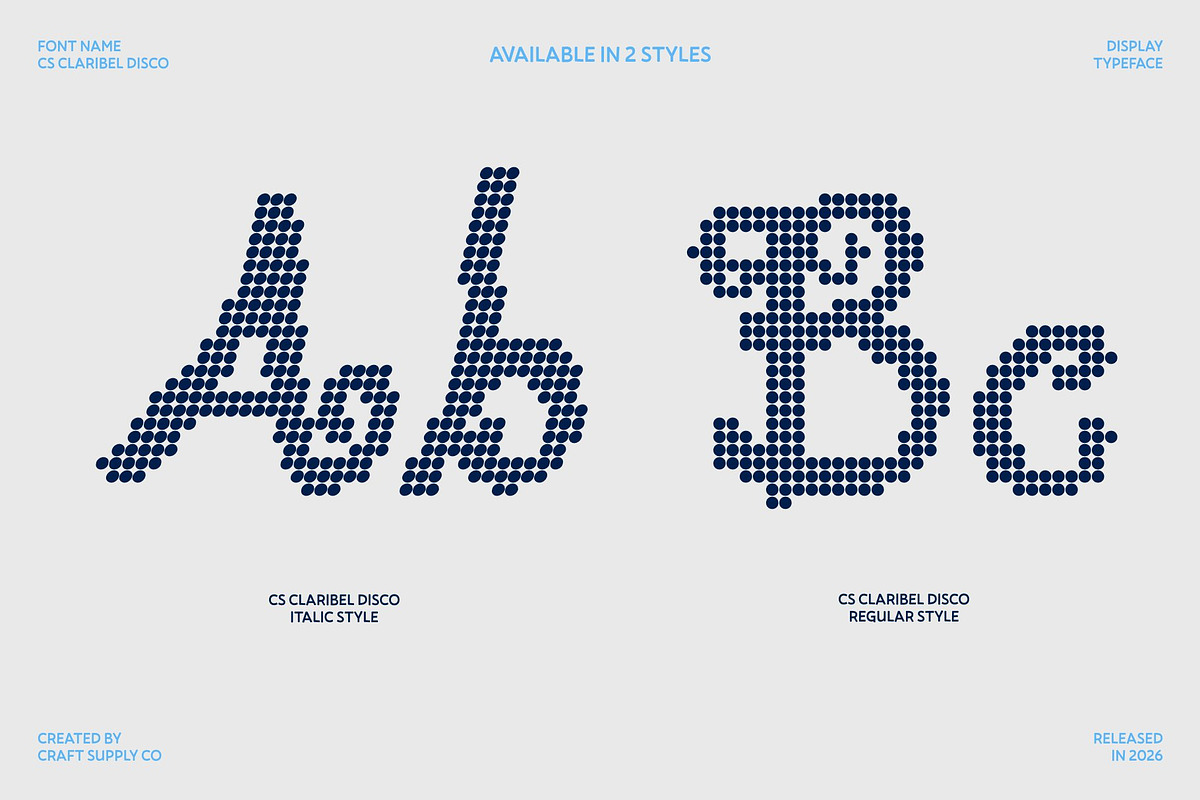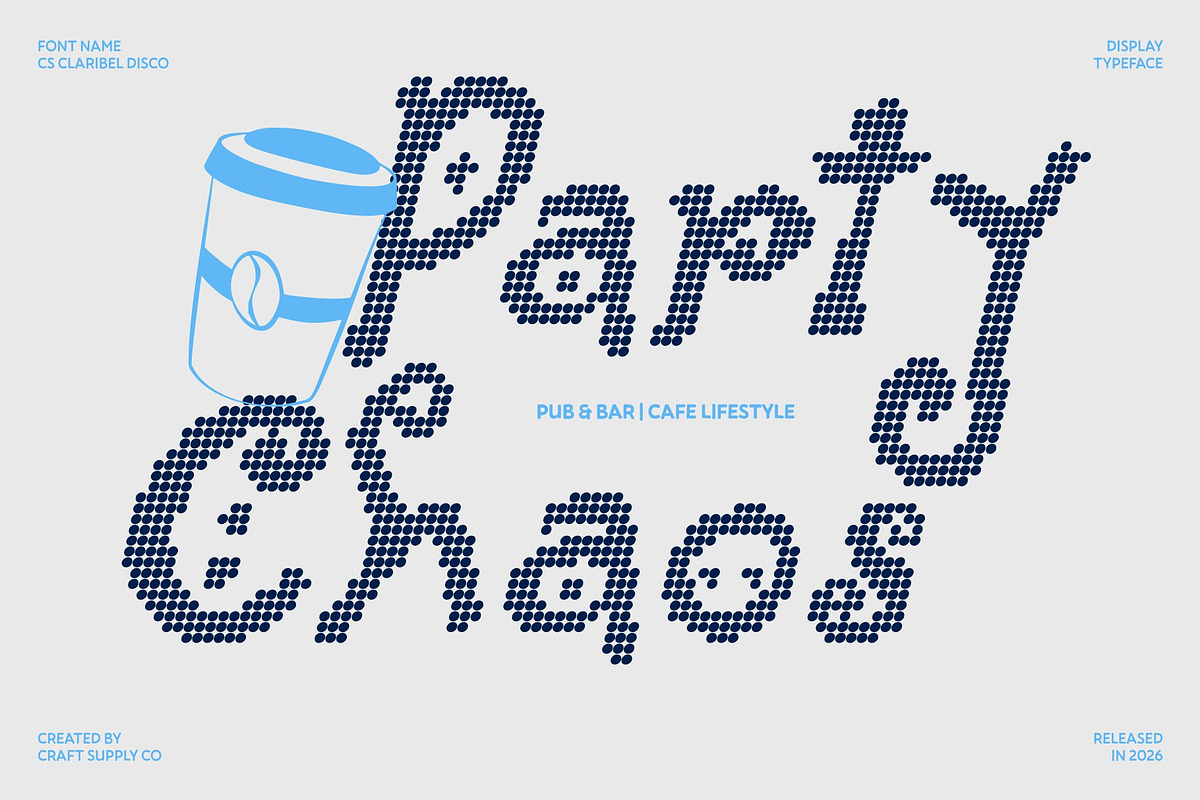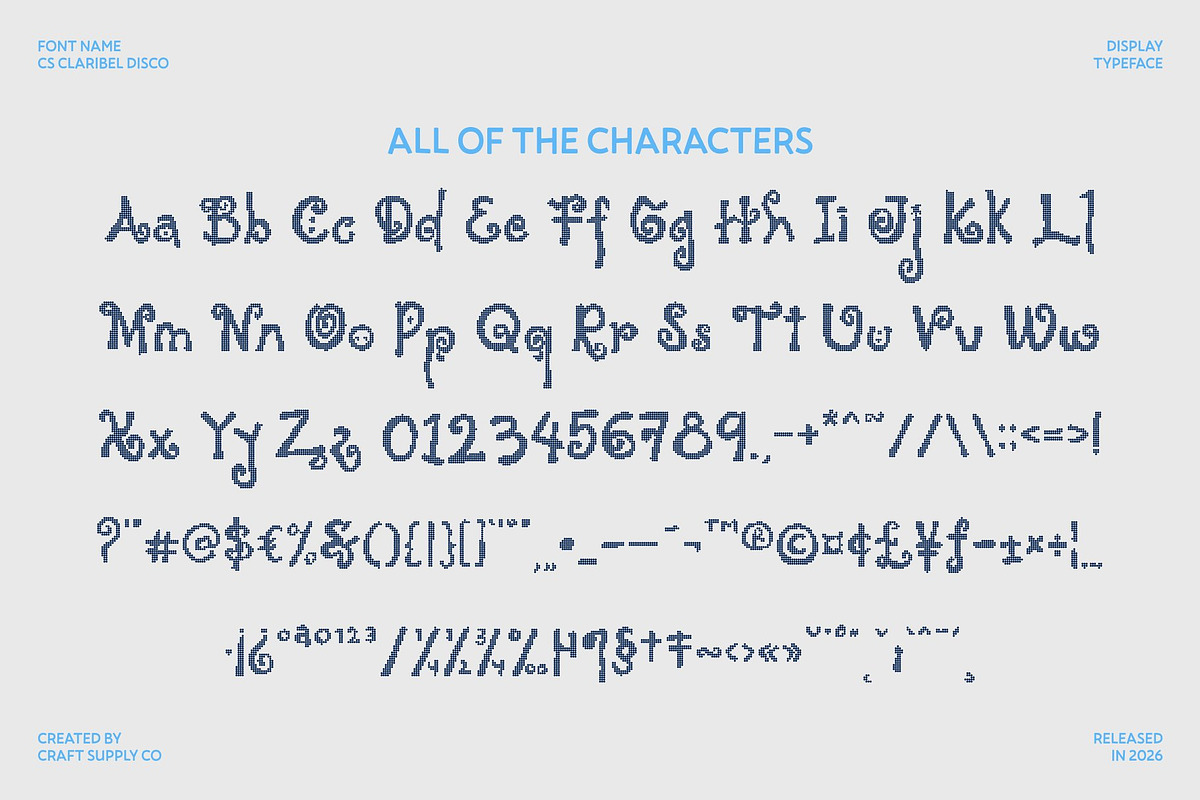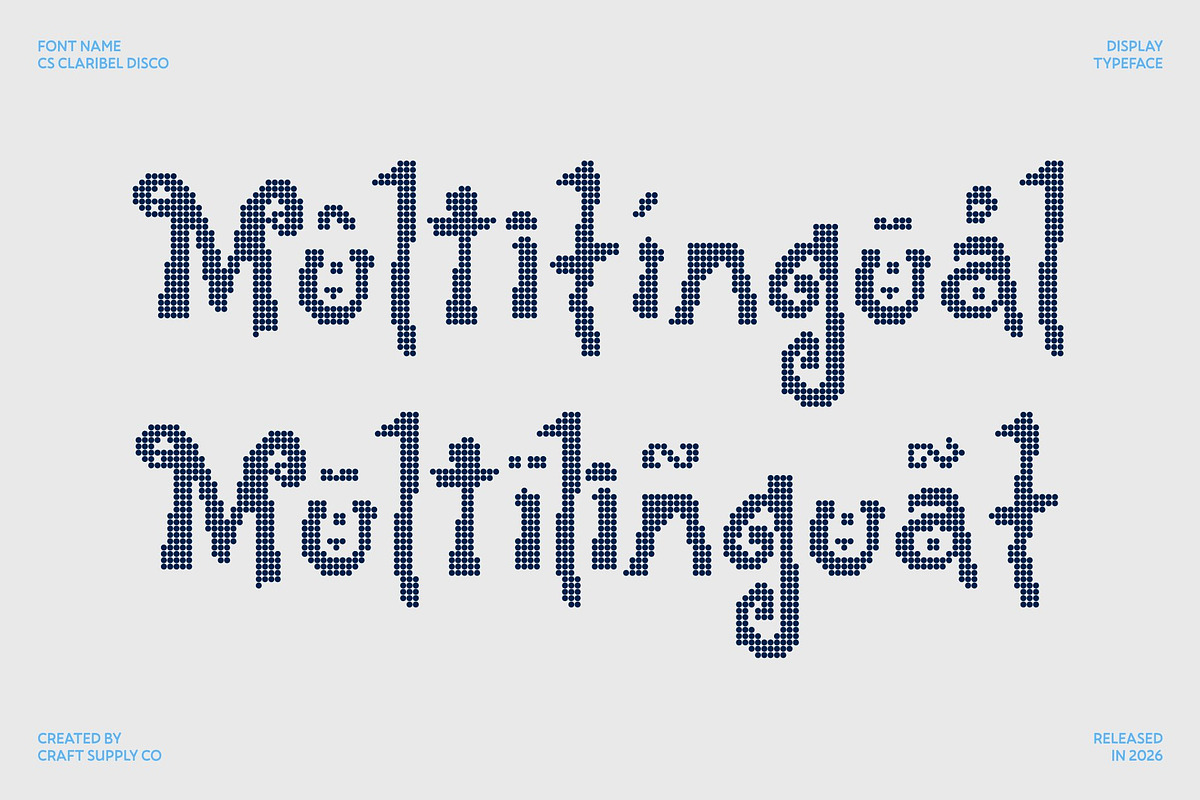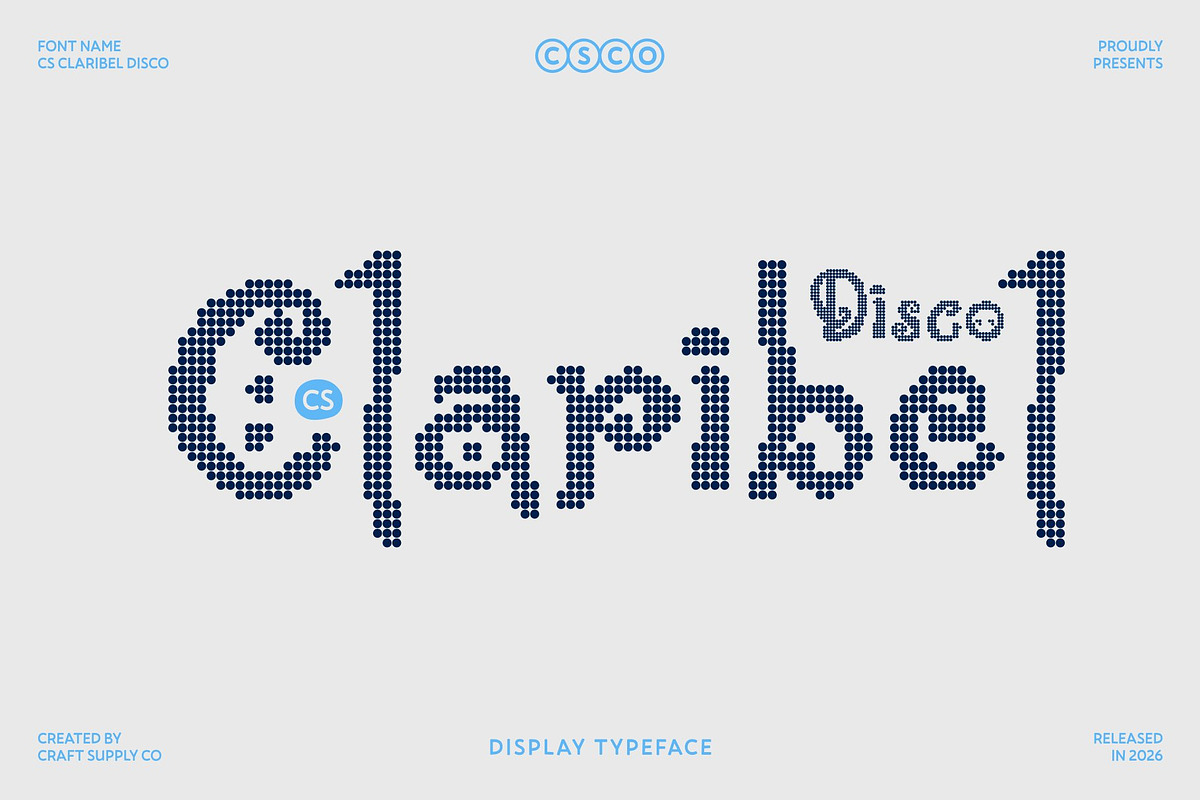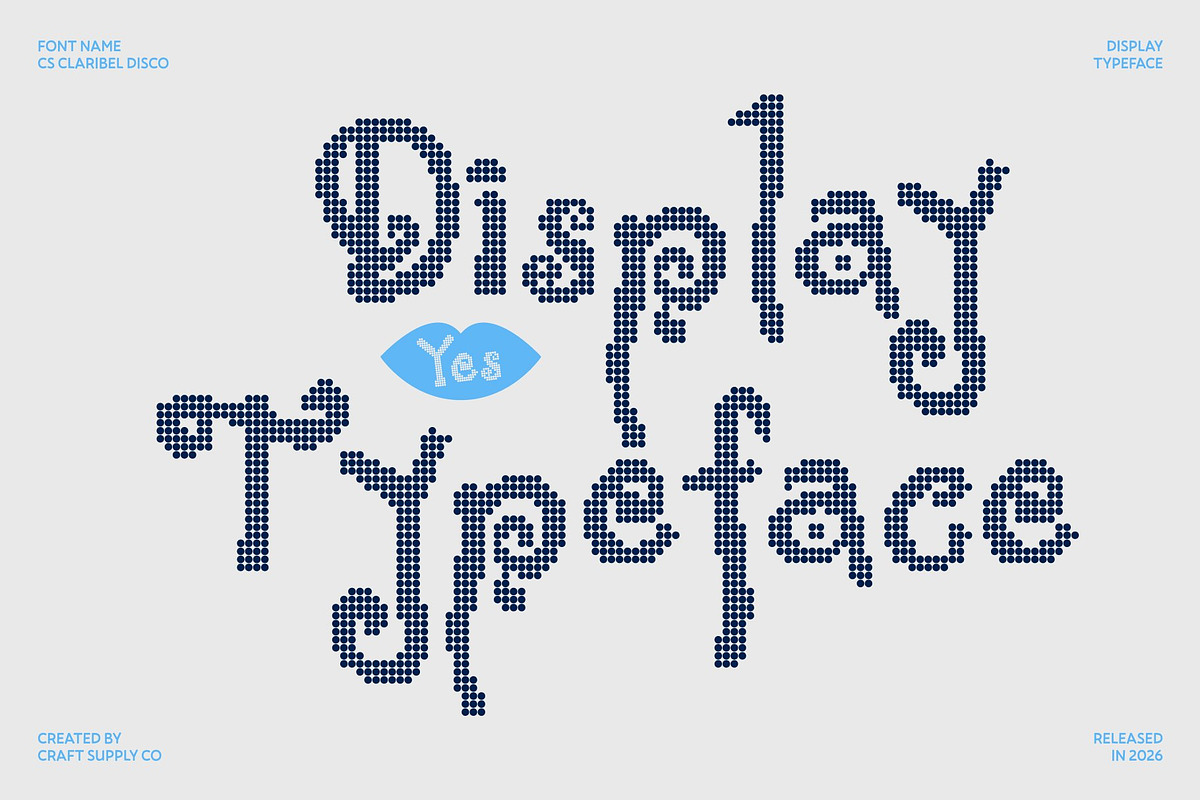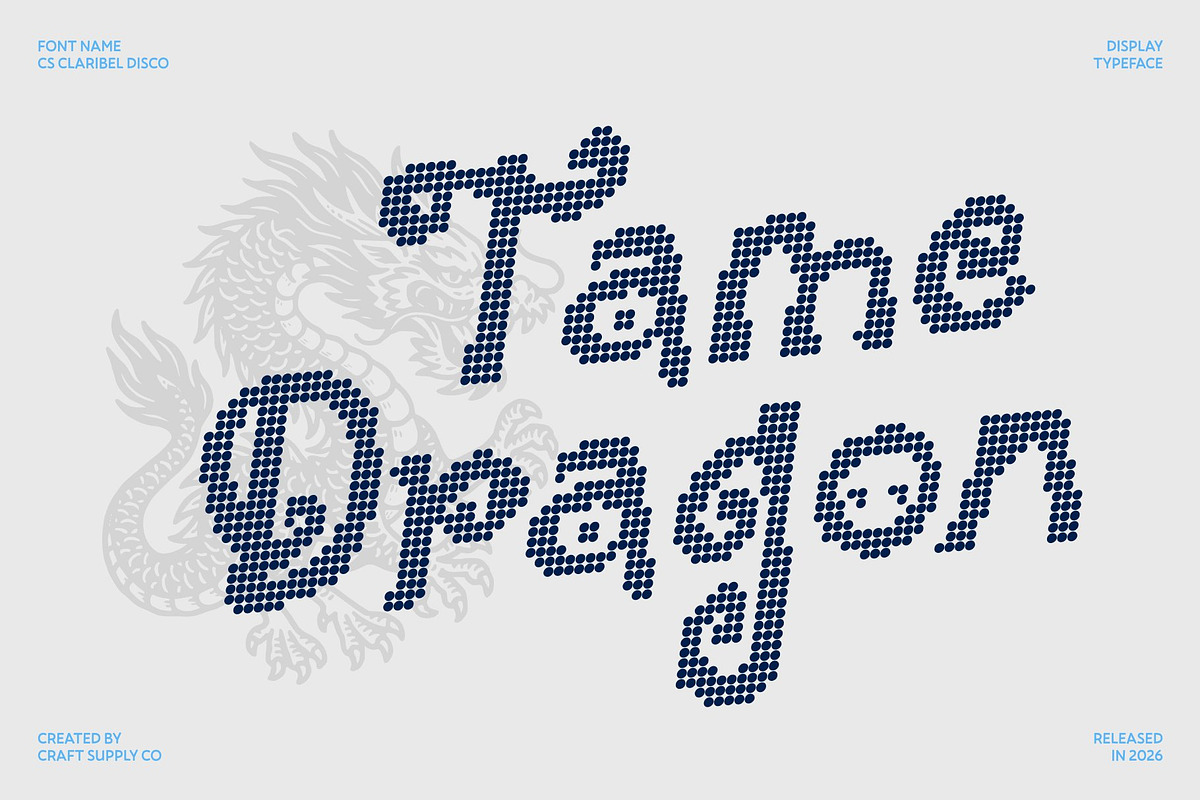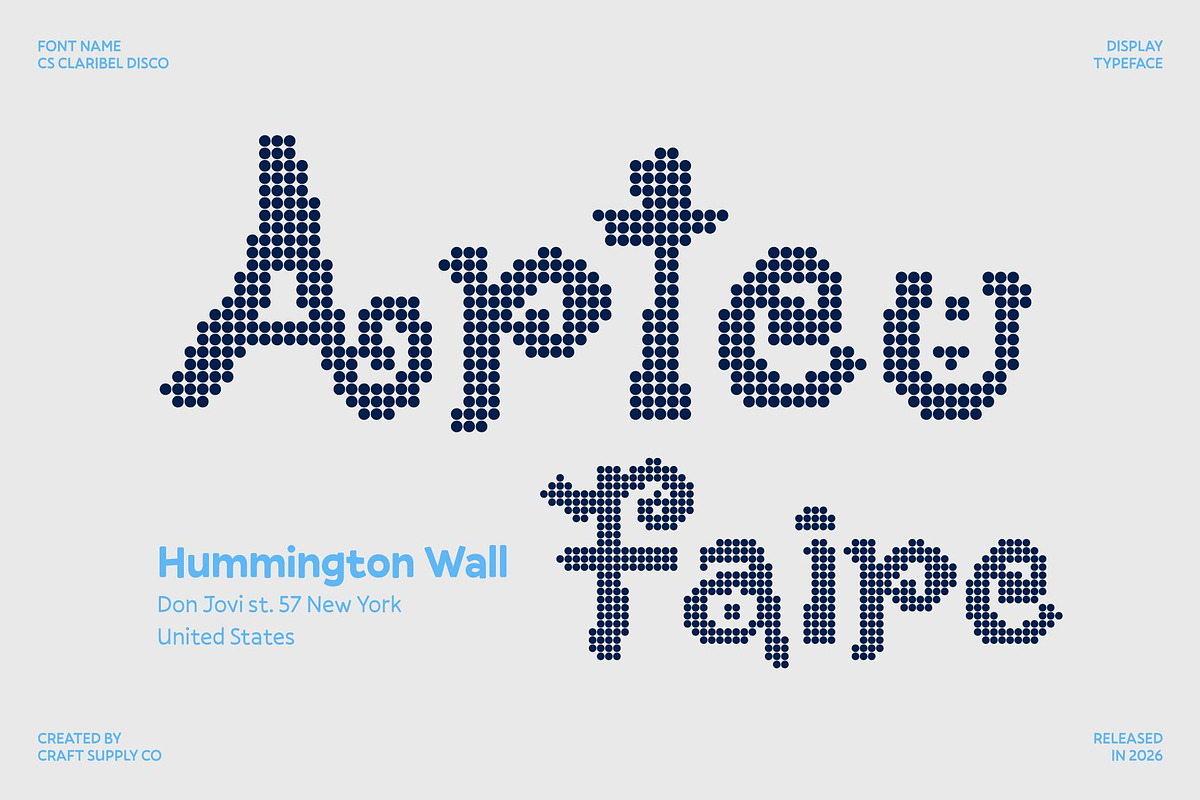
CS Claribel Disco
CS Claribel Disco – Whimsical Fantasy with Sparkling Disco Magic
Artistic Handwritten Style with Disco Glow This transforms its decorative handwritten elegance into a radiant dotted spectacle. The fluid strokes and expressive curves are reimagined with shimmering circular dots, giving each letter a luminous presence reminiscent of magical lights on a vibrant dance floor. This fusion of artistry and sparkle creates a typeface that feels imaginative, graceful, and full of life.
Whimsical Forms with Luminous Fantasy The playful curves and flowing lines retain their storybook charm, while the disco-inspired dotted texture adds rhythm and visual excitement. Each character appears to glow with movement, blending dreamy fantasy aesthetics with festive energy to create a captivating typographic experience.
Perfect for Elegant and Magical Designs This font shines beautifully in wedding invitations, boutique branding, event posters, and creative editorial layouts. Its decorative forms and sparkling details transform text into a visual centerpiece that feels expressive, personal, and enchanting.
Expressive Typography with Celebratory Charm Designed for creatives who value storytelling and artistic typography, this font combines whimsical elegance with joyful disco flair. The result is a font that feels imaginative, sophisticated, and wonderfully memorable.